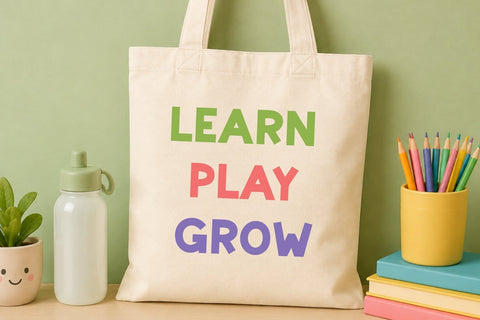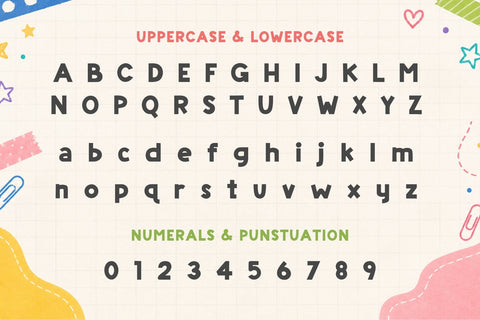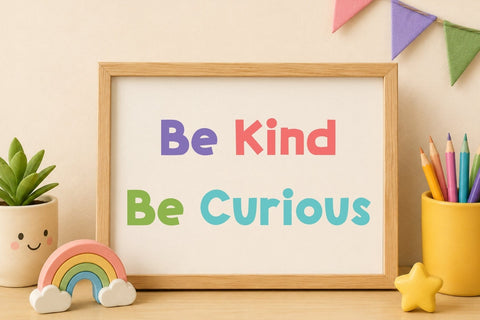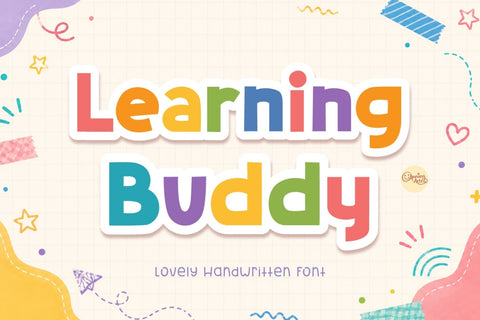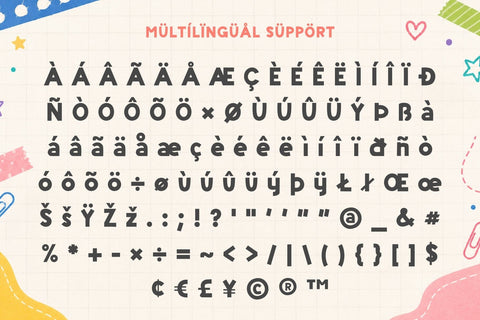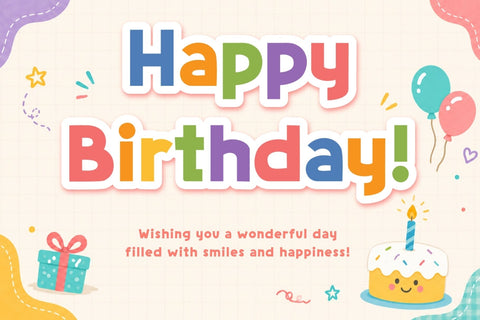
Learning Buddy - Cute Handwritten Font
Learning Buddy is a cheerful handwritten display font made for teachers, classrooms, and children's crafts. Its bold, rounded style makes every design fun, colorful, and easy to read.
Perfect for worksheets, classroom decor, bulletin boards, flashcards, educational printables, Cricut crafts, sublimation, T-shirts, tote bags, stickers, birthday invitations, homeschool resources, and kids' branding projects. Includes multilingual characters.